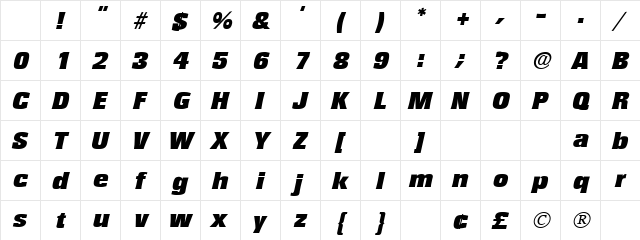
Plenty is a composed and adaptable typeface that performs quietly and consistently across a wide range of design contexts. The slanted form adds forward momentum and visual energy.
Pro Tip: Use Plenty for emphasis, pull quotes, and subheadings where its slanted energy can add rhythm to the layout.